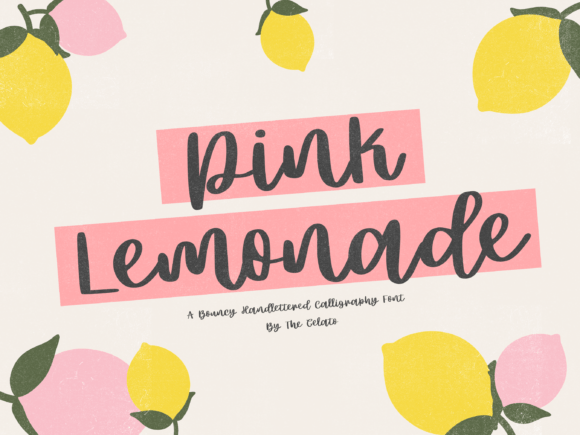
Introducing Pink Lemonade Font, the ultimate choice for those seeking the perfect blend of creativity and charm in their designs. Created by The Gelato, this script font is a true masterpiece that will elevate your projects and leave a lasting impression on your audience.
With its captivating and eye-catching appearance, Pink Lemonade Font is the epitome of joy and happiness. Its soft curves and whimsical lines bring a sense of playfulness to every letter, making it the ideal choice for any project that aims to evoke positive emotions.
Whether you're designing a display poster, crafting a captivating social media post, or creating a stunning logo, Pink Lemonade Font is your go-to solution. Its versatility allows it to effortlessly adapt to any design concept, adding a touch of elegance and uniqueness to every piece.
This font is a true work of art, meticulously crafted to ensure a seamless and visually pleasing experience for your audience. Its smooth and flowing strokes create an effortless reading experience while adding a sense of sophistication to your designs.
Pink Lemonade Font is not just a font, it's a story waiting to be told. It speaks volumes about your creativity and attention to detail, setting you apart from the crowd and leaving a lasting impression on anyone who lays eyes on your work.
Imagine the impact of using Pink Lemonade Font in your next project. Its joyful and vibrant personality will instantly capture the attention of your audience, drawing them in and making them want to explore further. It's the perfect tool to make your designs shine and stand out in a sea of mediocrity.